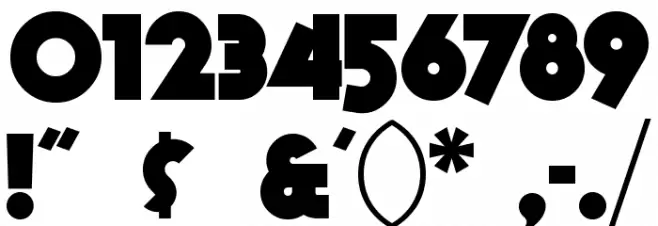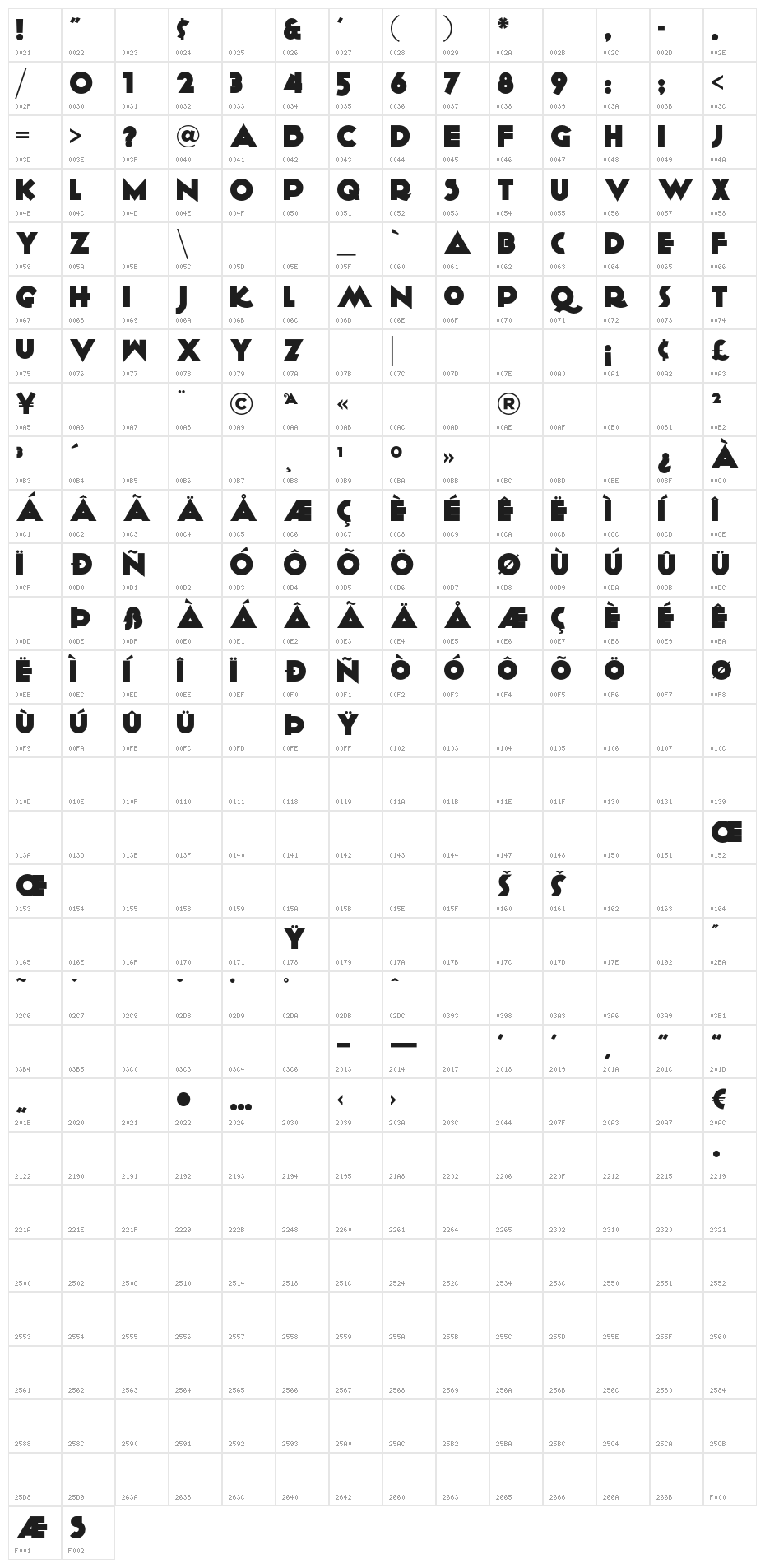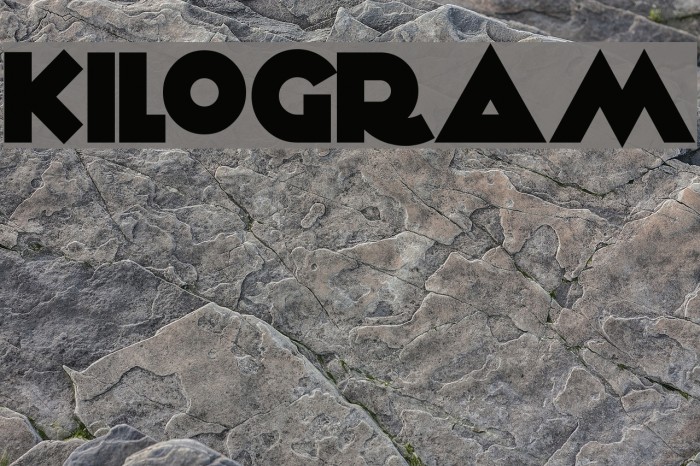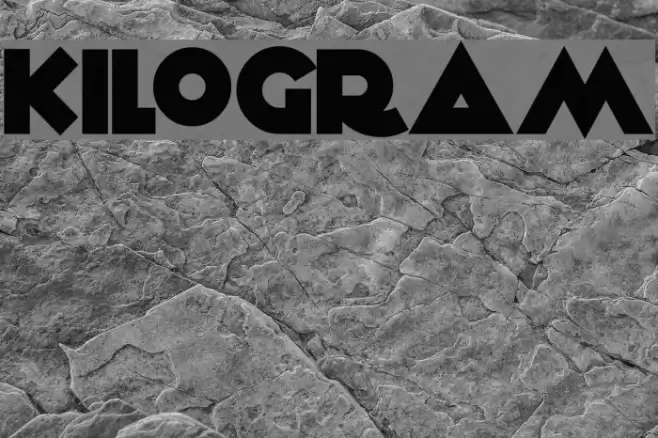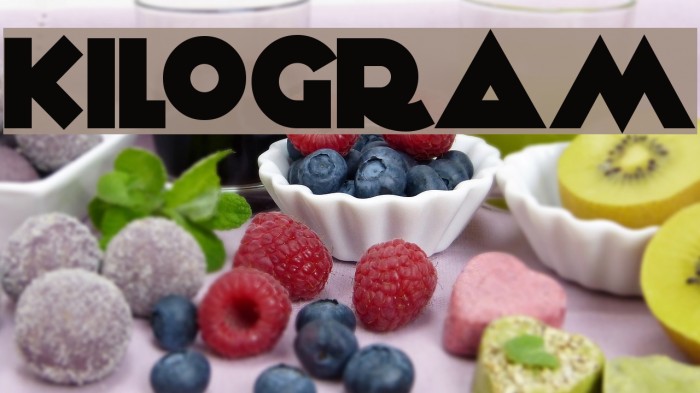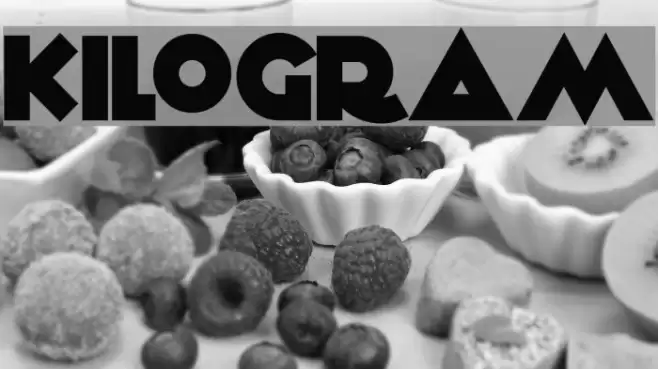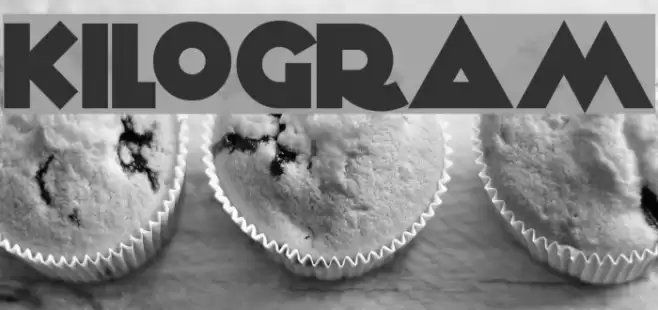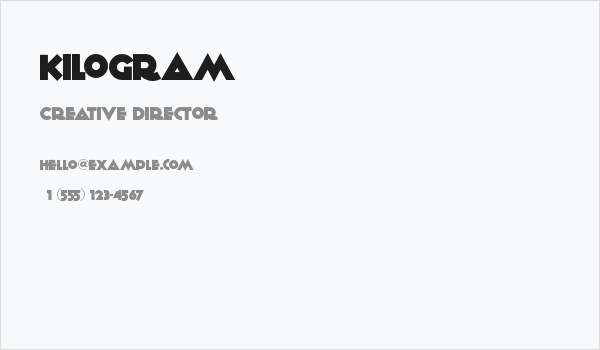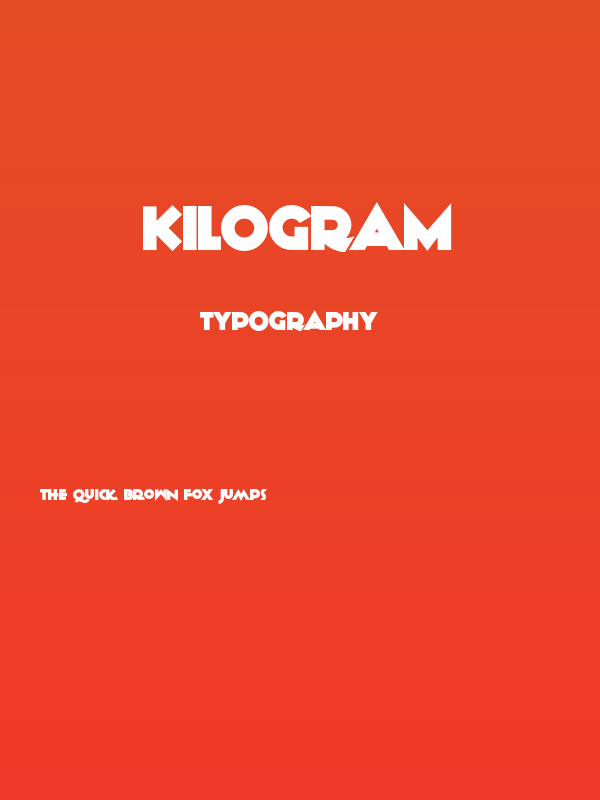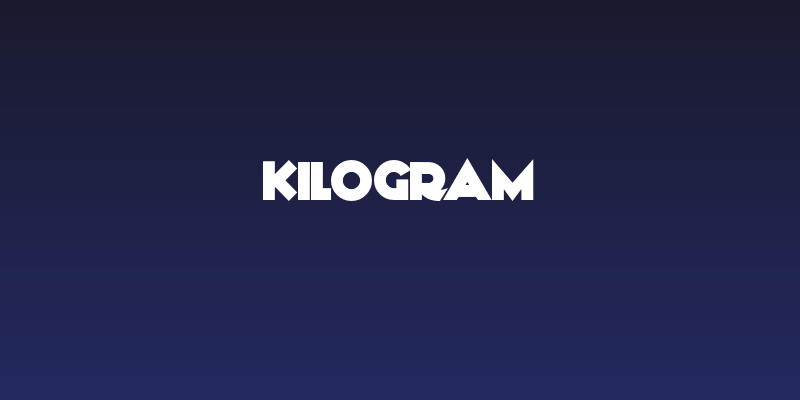
KiloGram Font
KiloGram Description
This font exhibits a bold and geometric style, characterized by thick, uniform strokes and sharp angles. The uppercase letters are particularly striking, with a strong presence and a modern aesthetic. The lowercase letters maintain the same boldness, ensuring consistency across the typeface. Numbers are equally bold, with a rounded yet angular design that complements the letters. Special characters are designed with the same geometric precision, making them stand out. Overall, this font is designed to capture attention and make a statement, suitable for impactful headlines and logos.